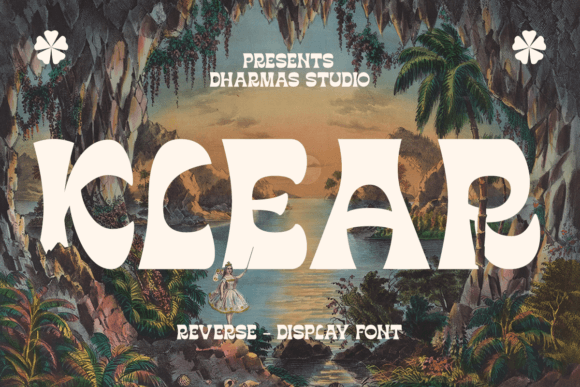
Looking for the best font for typography logos? Look no further than Klear Font, a game-changer in the world of design. Created by Dharmas Studio, this display font is here to revolutionize your projects and leave a lasting impression.
Klear Font is not your average typeface. It breaks free from the traditional norms and embraces the unconventional beauty of art nouveau. Inspired by its graceful flow, Klear brings a touch of quirkiness and elegance to your designs. It's the perfect blend of creativity and sophistication.
With Klear Font, you have the power to captivate your audience. Whether you're working on a formal project or something more avant-garde, this font has got you covered. Its versatility knows no bounds, making it suitable for a wide range of design styles and purposes.
One of the standout features of Klear Font is its variety. With two styles to choose from – Regular and Outline – you have the freedom to experiment and create unique compositions. The Regular style exudes confidence and professionalism, while the Outline style adds a touch of playfulness and creativity.
But Klear Font is not just about aesthetics. It's also about functionality. This typeface is meticulously crafted to ensure legibility and readability, even at smaller sizes. Your message will never get lost in the details with Klear Font.
When you download Klear Font, you're not just getting a font. You're getting a tool that empowers you to unleash your creativity. It's a fresh canvas waiting for your imagination to run wild. Whether you're designing logos, branding materials, posters, or social media graphics, Klear Font will elevate your work to new heights.
But don't just take our word for it. Join the growing community of designers who have fallen in love with Klear Font. They describe it as mesmerizing, captivating, and awe-inspiring. It's a font that speaks to the soul and leaves a lasting impression on anyone who encounters it.